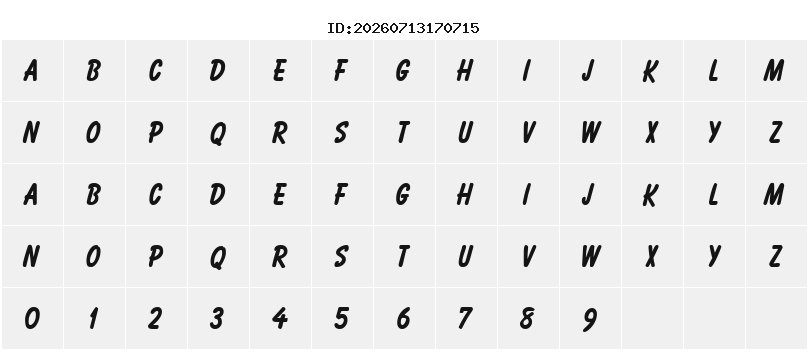
Balogna Preview
• Font Name: Balogna
• Font Style: Gras
• Font ID: Weatherly Systems, Inc. Balogna Bold
• Full Font Name: Balogna Gras
• Version: Publisher's Paradise -- Media Graphics International Inc.
• PostScript Name: BalognaBold
• Character Count: 225
About Balogna.ttf
Balogna.ttf is a modern, elegant sans-serif font designed for ultimate readability and visual harmony. Perfect for branding, headlines, web design, and print materials.